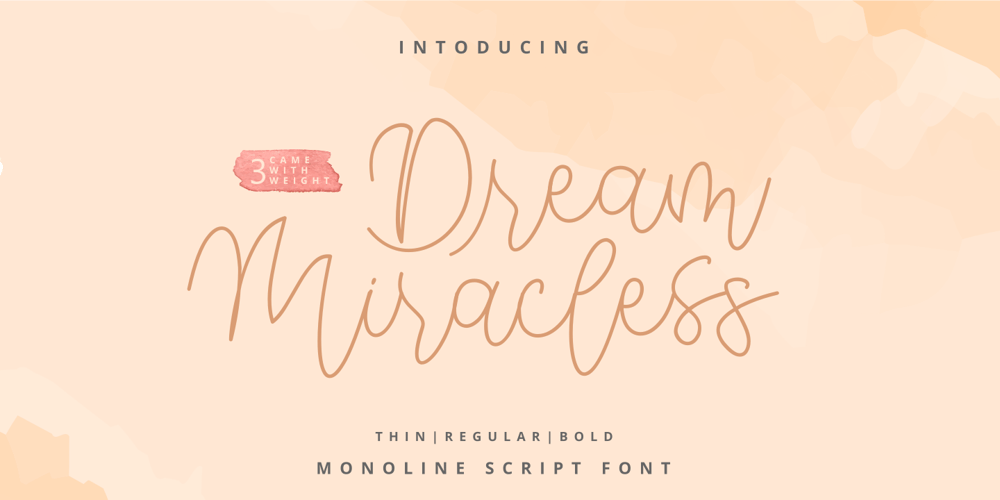
Dream Miracless Font Family was designed by Zeenesia Studio and published by Zeenesia Studio. Dream Miracless contains 3 styles and family package options. Introducing Dream Miracless FontDream Miracless is a Monoline Lettering Font. Its came with three weight, Thin, Regular, and Bold.Dream Miracless is perfect for product packaging, branding project, megazine, social media, wedding, or just used to express words above the background.What’s Included :- Standard glyphs- Multilingual- Web Font- Works on PC & Mac Simple installationsAccessible in the Adobe Illustrator, Adobe Photoshop, Adobe InDesign, even work on Microsoft Word. PUA Encoded Characters – Fully accessible without additional design software. Fonts include multilingual support Image used : All photographs/pictures/vector used in the preview are not included, they are intended for illustration purpose only.Cheers!Thank You